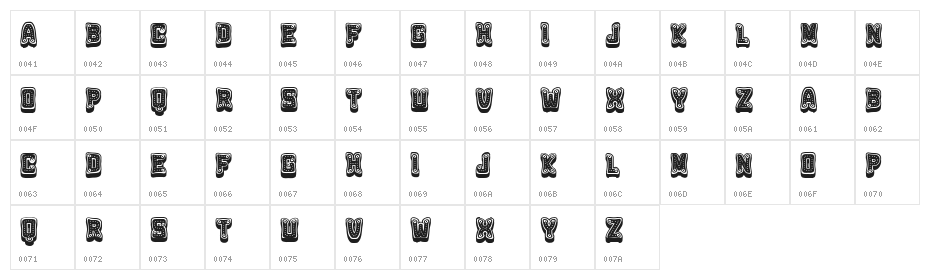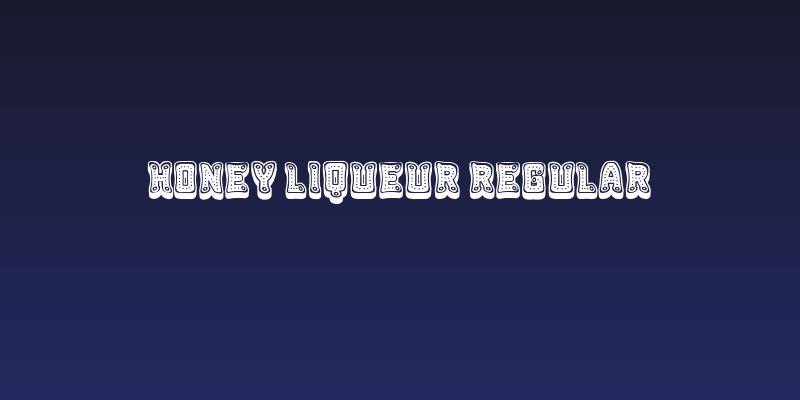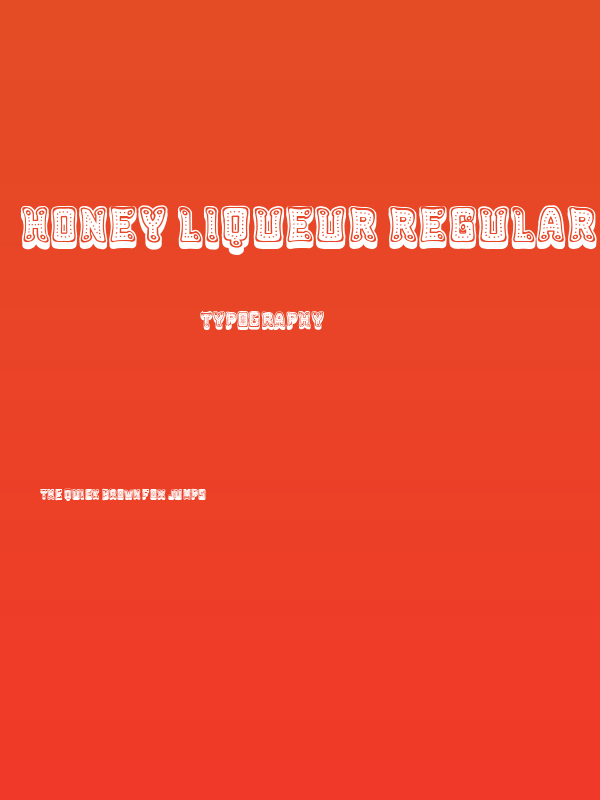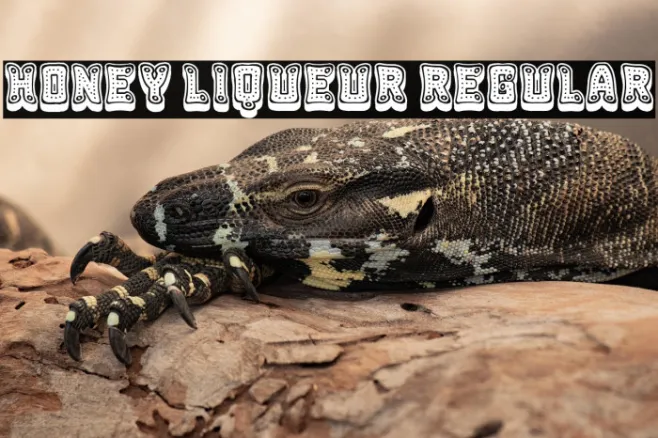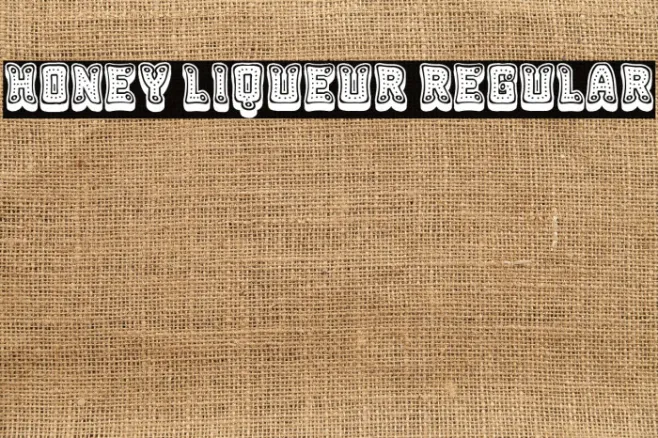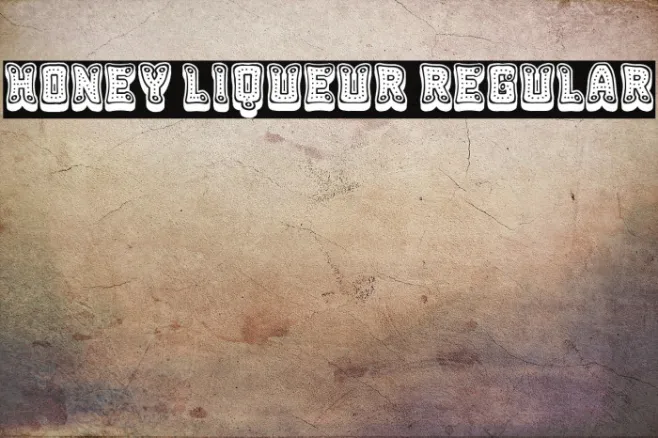
Honey Liqueur Regular Font
Honey Liqueur Regular Description
This font features a playful and decorative style with a bold, bubbly appearance. Each character is outlined with a thick black border and filled with intricate dot patterns, giving it a whimsical and eye-catching look. The letters are uniform in height and width, contributing to a cohesive and balanced design. The font's unique style makes it ideal for creative and fun projects, capturing attention with its vibrant and lively aesthetic. The characters are well-spaced, ensuring readability while maintaining their decorative charm.